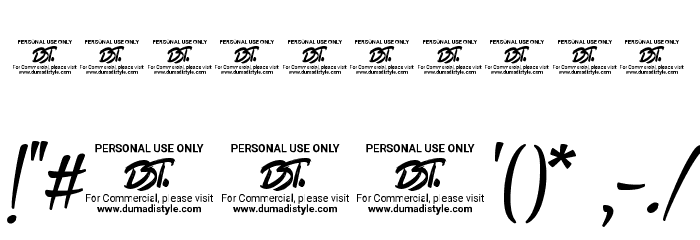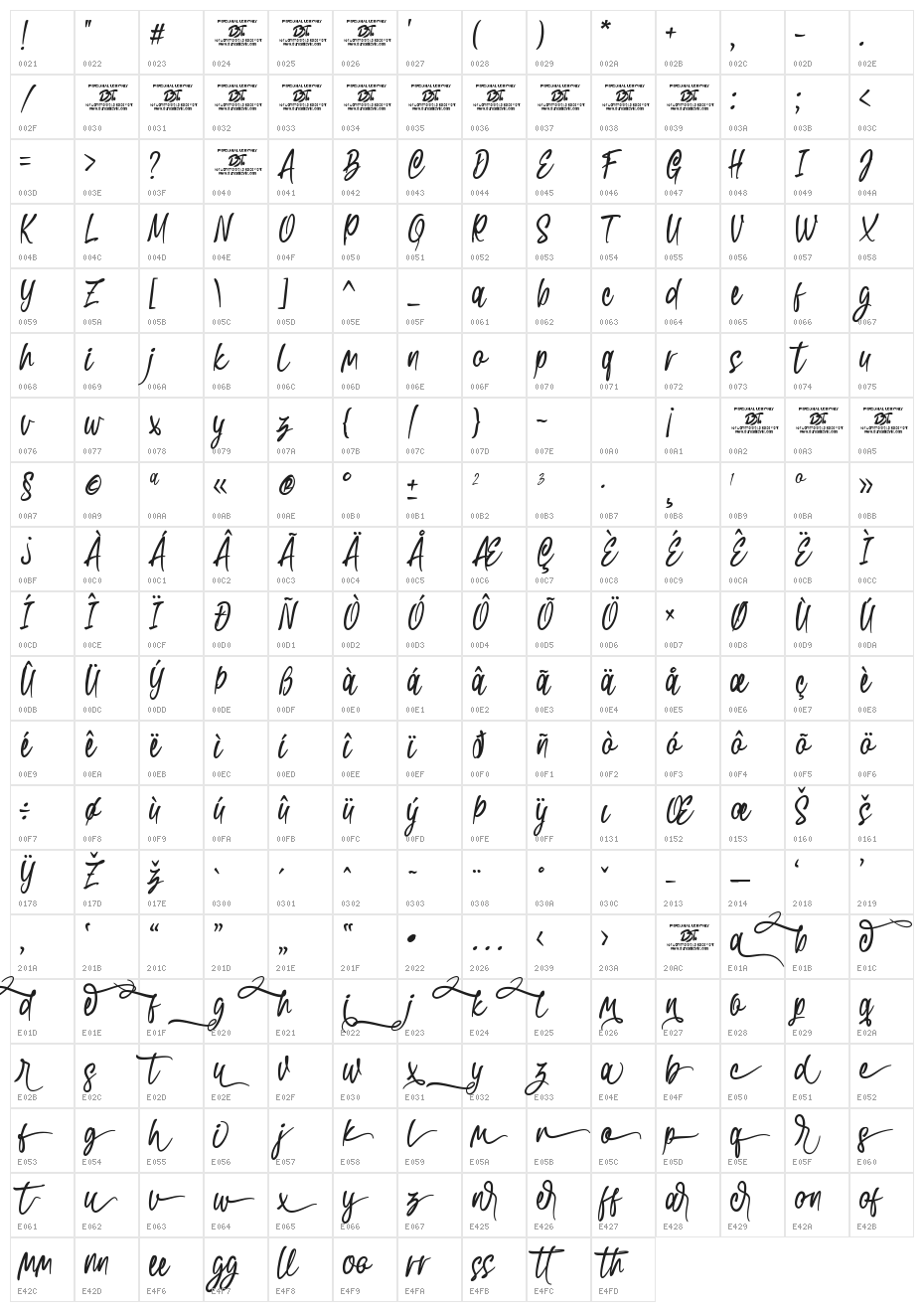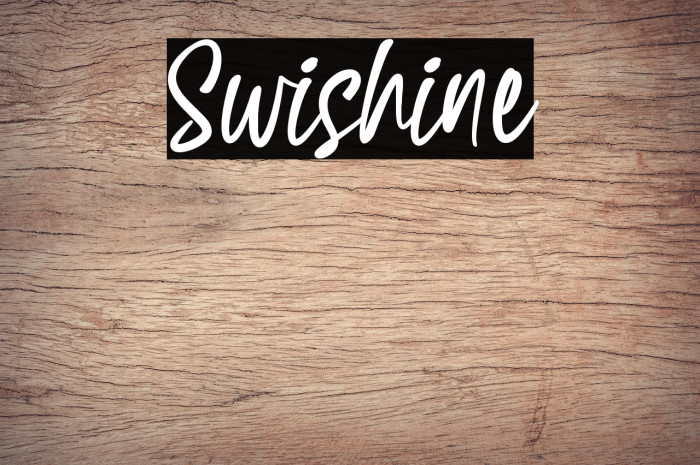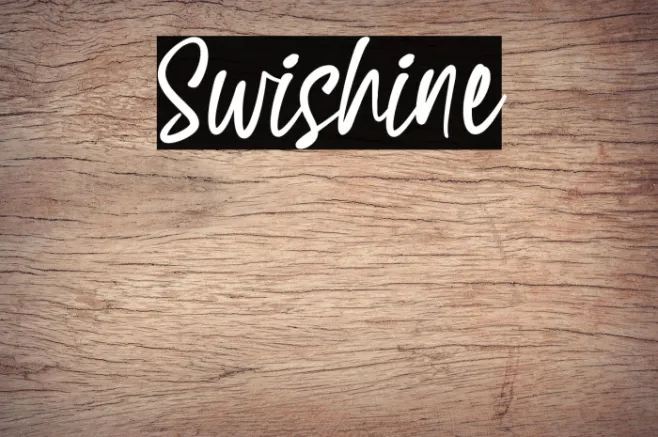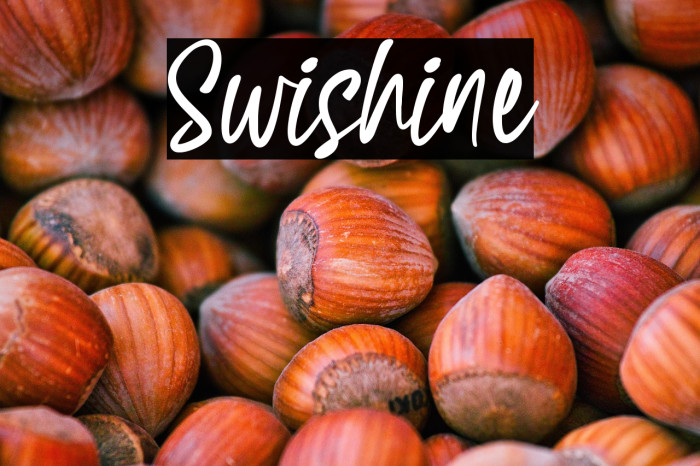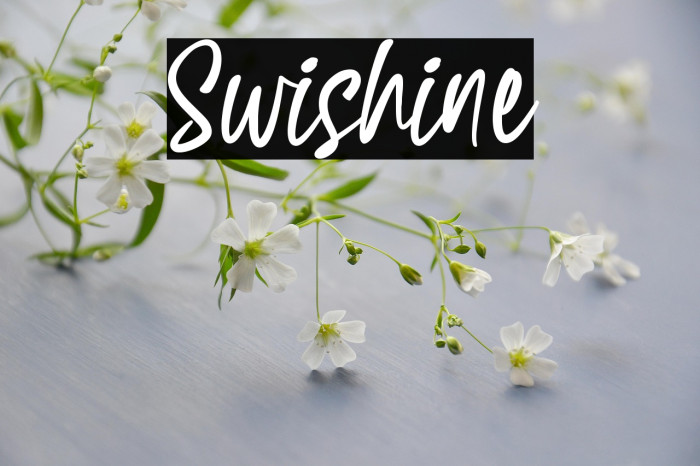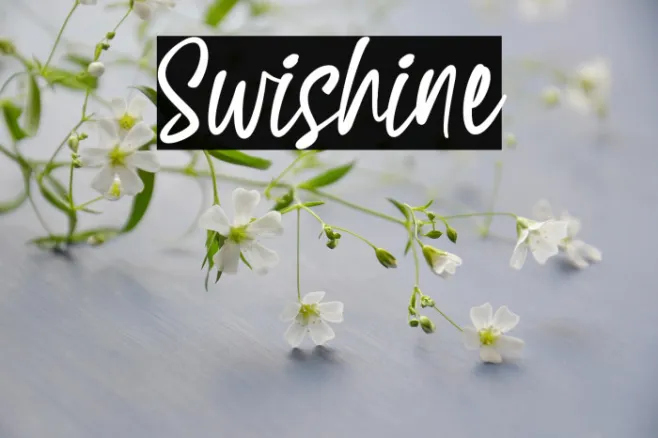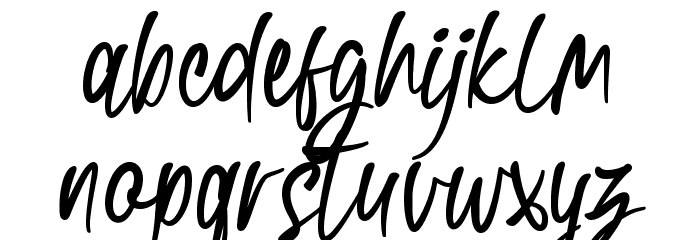
Swishine Font
Swishine Description
This font features a dynamic and flowing script style, characterized by its smooth, cursive strokes and elegant curves. The uppercase letters are bold and expressive, with a slight slant that adds to the overall fluidity. The lowercase letters maintain a consistent rhythm, enhancing readability while preserving the artistic flair. The numerals and special characters are crafted with the same attention to detail, ensuring a cohesive look across all elements. This font exudes a sense of creativity and sophistication, making it ideal for projects that require a personal touch.